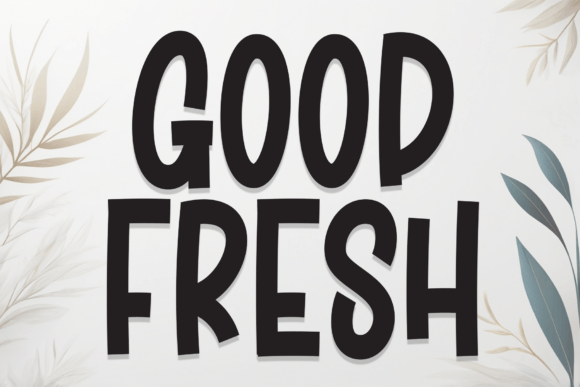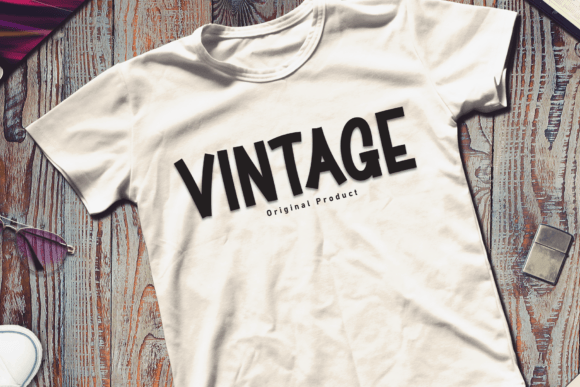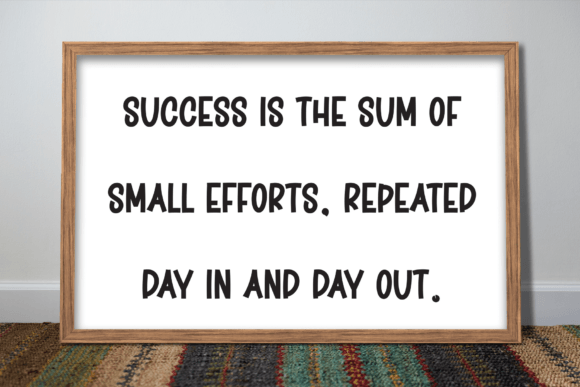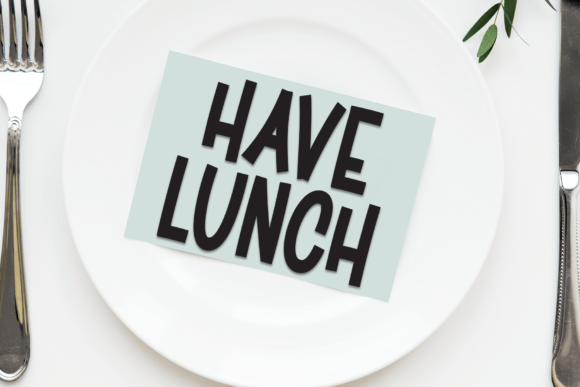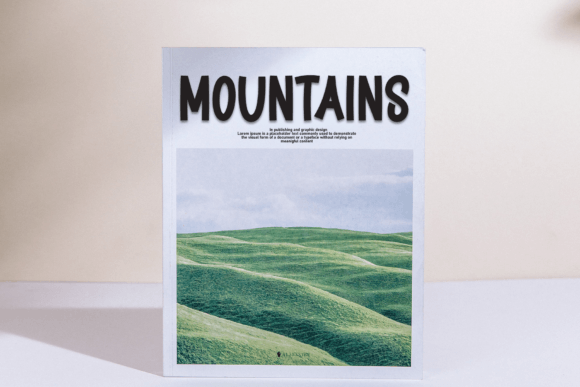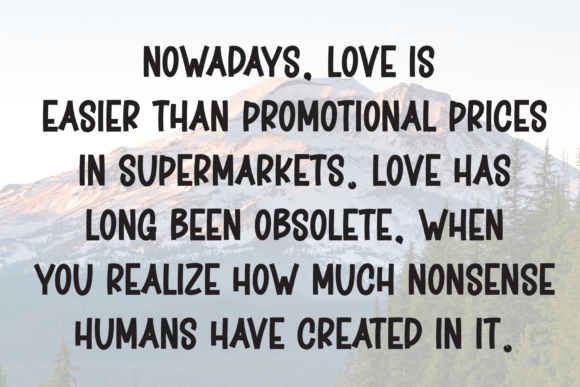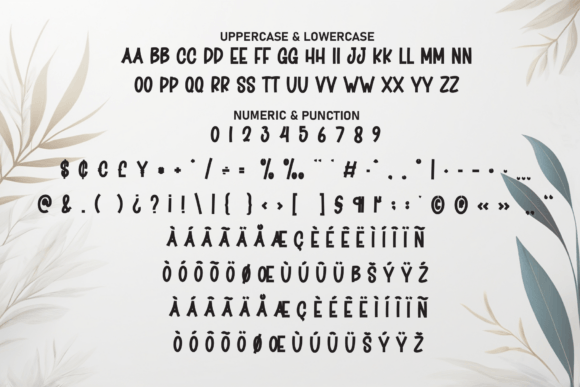
Get Ready to Make a Statement with Good Fresh Font
Do you remember that moment when you finally nailed the perfect design concept for a project? The rush of excitement, the sense of accomplishment, and the feeling of knowing you’ve created something truly special? For designers, those moments are what make all the hard work worth it.
One of the key elements that can elevate a design from good to great is the right font. That’s where the Good Fresh Font comes in – a bold display font that’s designed to grab attention and create a lively atmosphere. With its thick, easy-to-read letters, this font is perfect for signs, posters, and headlines that need to stand out from the crowd.
Whether you’re working on a new branding project or creating a social media campaign, the Good Fresh Font is a valuable addition to any designer’s toolkit. Its modern look and playful feel make it a great choice for designers who want to add a touch of personality to their work.
Key Features of Good Fresh Font
- Unique Characteristics: The font features a unique blend of modern and vintage elements, with subtle flair and elegance, making it perfect for creative projects.
Good Fresh Font Review
As a designer, I was excited to dive into the world of “Good Fresh Font”. At first glance, I was drawn to its modern aesthetic and versatility. ✨ The font’s clean lines and subtle flair make it perfect for a wide range of applications, from headlines to body text.
However, I did encounter a few limitations. ⚠️ The font’s weight system can be a bit inconsistent at times, resulting in a slightly uneven visual flow. Furthermore, the font’s character set is limited, which may pose a challenge for designers working with languages that require a broader range of characters.
- Modern aesthetic and versatility
- Clean lines and subtle flair
- Flexible and adaptable
Overall, I would give “Good Fresh Font” 4 out of 5 stars. While it may not be perfect, its strengths far outweigh its weaknesses. With a bit of tweaking and expansion, this font has the potential to become a true industry leader.
Tips for Getting the Most Out of Good Fresh Font
For best results, use Good Fresh Font in conjunction with bold or italic text to add emphasis.
Avoid using Good Fresh Font in small font sizes, as it may become difficult to read.
Experiment with different font sizes and colors to create visually appealing designs.
Good Fresh Font is suitable for use in:
- Body text for magazines and newspapers
Montserrat is a sans-serif font designed by Julieta Ulanovsky. It is perfect for use in digital products, logos, and headings due to its clean and modern design. Montserrat is more versatile than Good Fresh Font as it comes in a variety of weights and is highly customizable.
Lato is a sans-serif font designed by Łukasz Dziedzic. It is a great alternative to Good Fresh Font for use in body text due to its high readability and elegant design. Lato is also highly customizable and comes in a variety of weights.